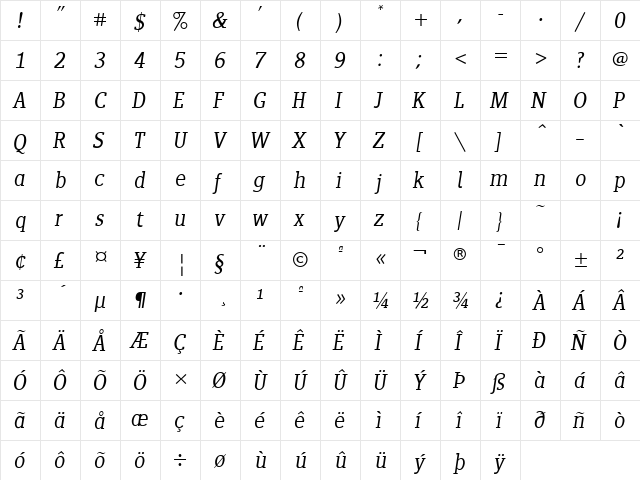
Siseriff LT Std LightItalic Regular Font Preview
| Foundry | Linotype Library GmbH |
| Designer | Bo Berndal |
Design Context for Siseriff LT Std LightItalic Typeface
Siseriff LT Std LightItalic carries the refined structure of traditional serif typography, with bracketed terminals and considered proportions that communicate credibility and craft. The slanted form adds forward momentum and visual energy. The delicate stroke weight brings airiness and refinement to layouts.
Pro Tip: Use Siseriff LT Std LightItalic with generous line-spacing for the most refined reading experience — its light weight benefits from room between lines.